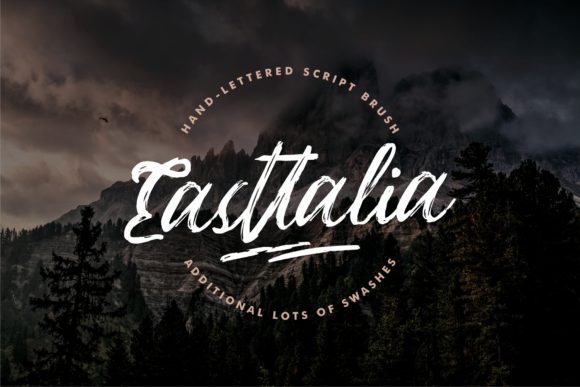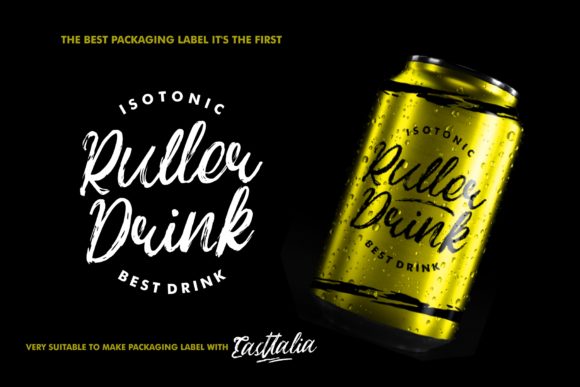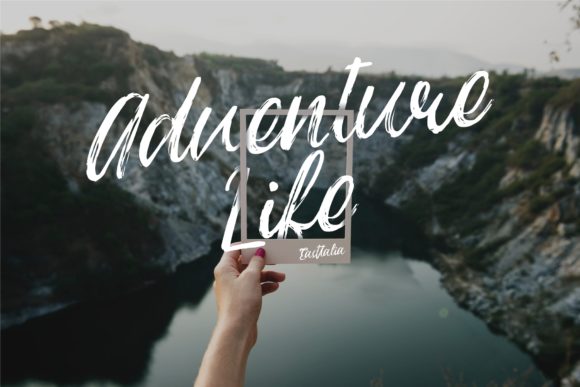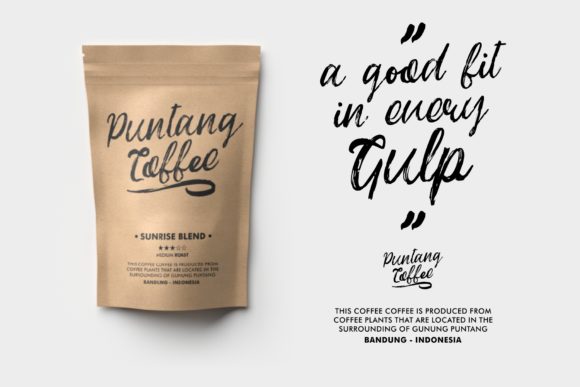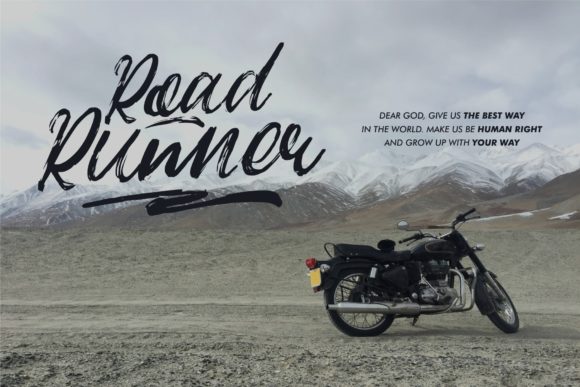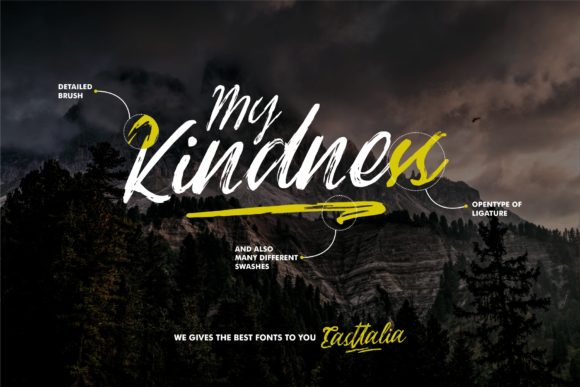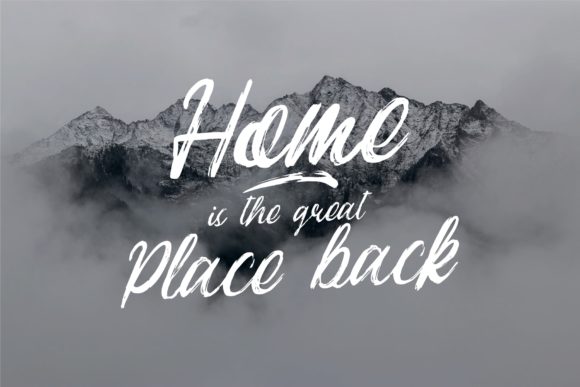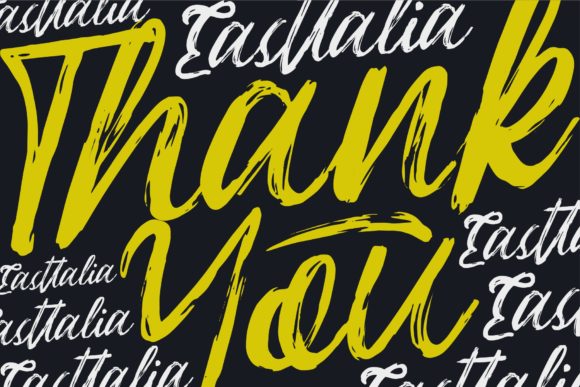
Easttalia Script Font
About Easttalia Script Font
The Easttalia is a striking brush script. It was based on hand-lettered script with a natural feel.
It’s perfect for logos, printed quotes, invitations, cards, product packaging, headers and much more!